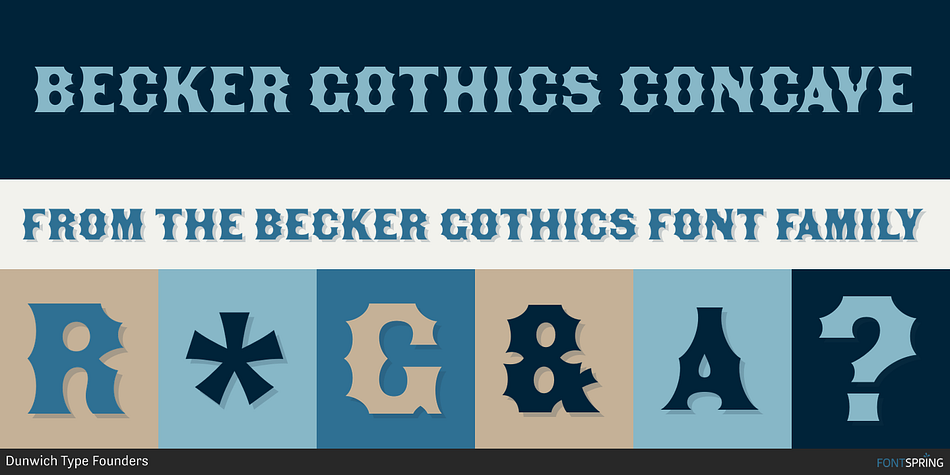
BECKER GOTHICS CONCAVE
Becker Gothics is a multiple classification font family. This typeface has five styles and was published by Dunwich Type Founders.
The Becker Gothics pay homage to the nineteenth century American lettering master George Becker.
The Becker Gothics pay homage to the nineteenth century American lettering master George Becker. Designer James Puckett has given new life to the ingenious gothic alphabets found in Becker’s 1854 lettering manual Ornamental Penmanship. Use this quintet of typographic voices to evoke vintage engraving, lithography, signs, and wood type. Each font includes 23 ornaments, and the ornaments are PUA encoded.